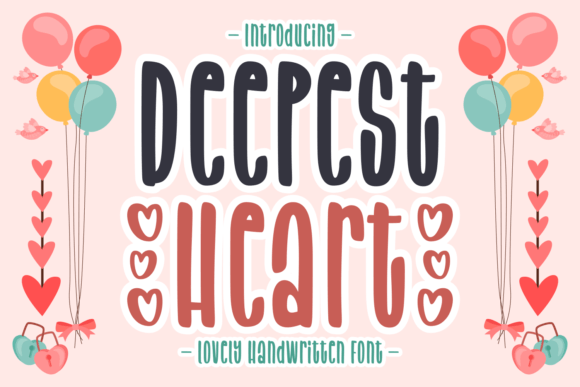
Introducing Deepest Heart Font - Experience a Heartfelt Connection Through Design
Journey into the world of Deepest Heart Font, a script font that weaves emotions and elegance into each letterform. Designed with love and care, this handwritten font exudes a friendly and inviting charm that will captivate your audience.
Immerse yourself in the beauty of Deepest Heart, meticulously crafted to bring warmth and individuality to your creative projects. Create diary planners and journals that reflect your unique personality, or design invitations and greeting cards that convey heartfelt messages.
Unleash your creativity with Deepest Heart and create stunning back-to-school projects, wedding decorations, and party invitations that leave a lasting impression. Its versatility extends to posters, blogs, clothing, and child-related designs, adding a touch of whimsy and charm to every project.
Explore the endless possibilities of Deepest Heart Font and watch your creative projects come to life with a heartfelt touch. Its friendly and lovely style will add a genuine connection to your designs, making them stand out from the crowd.